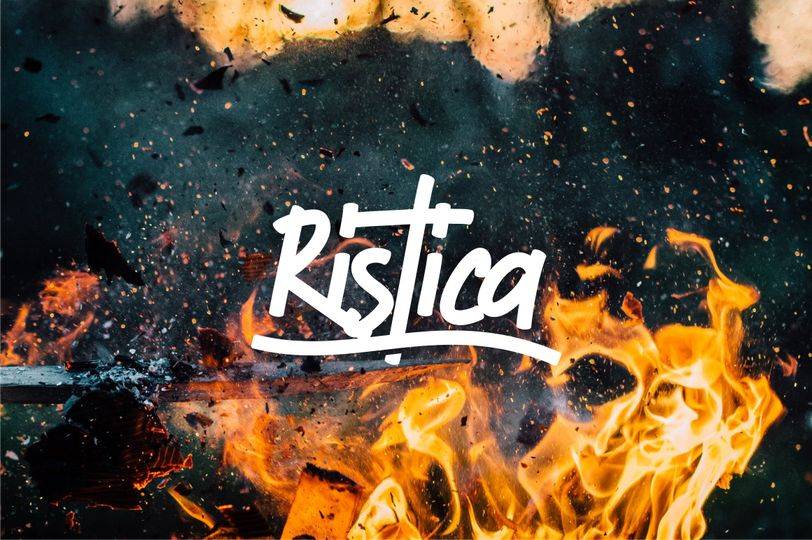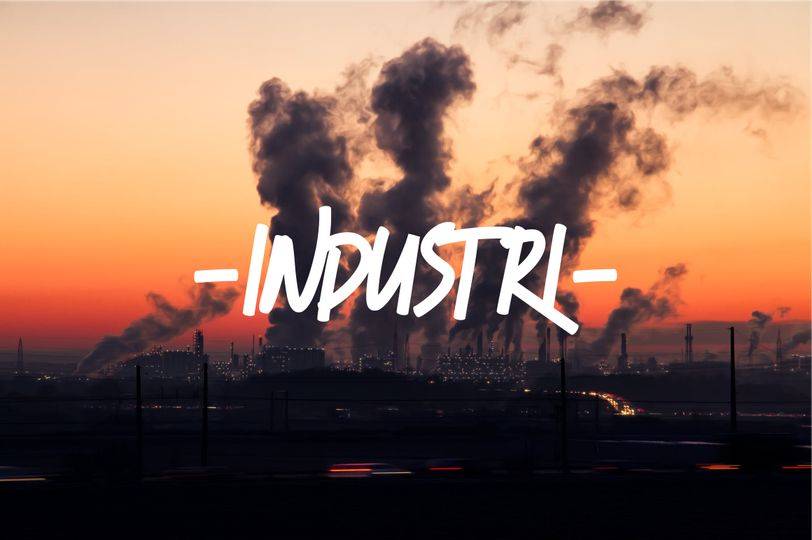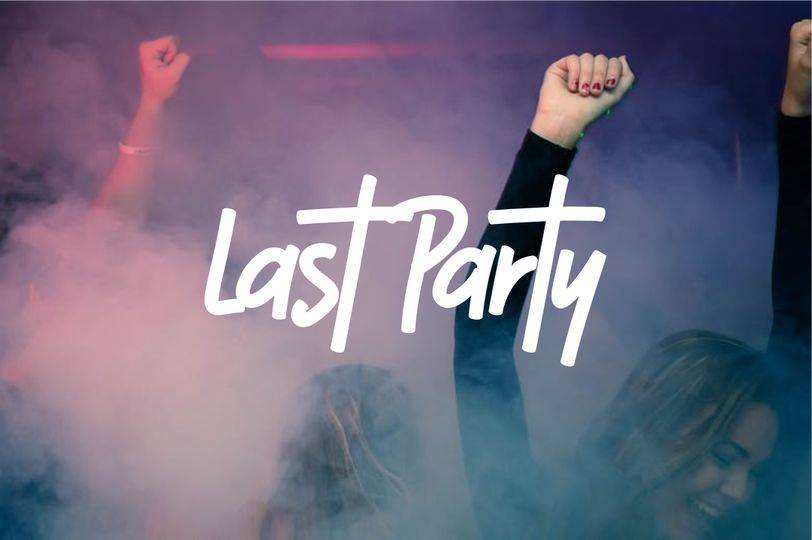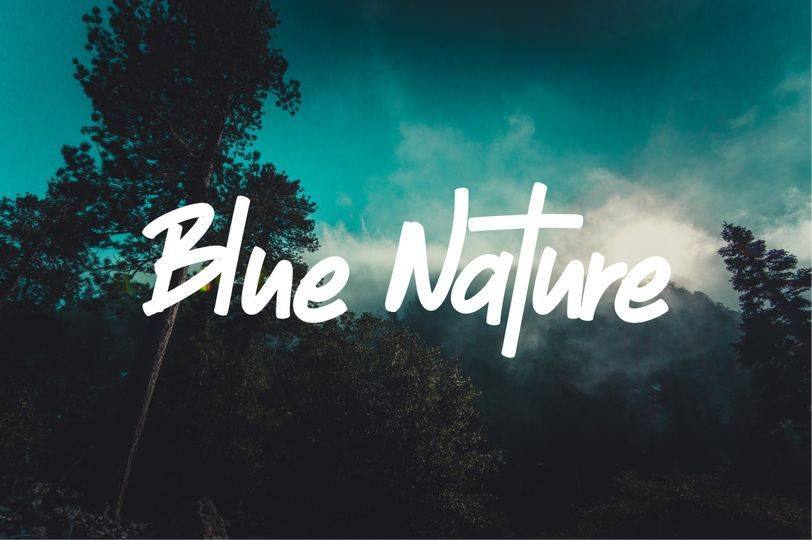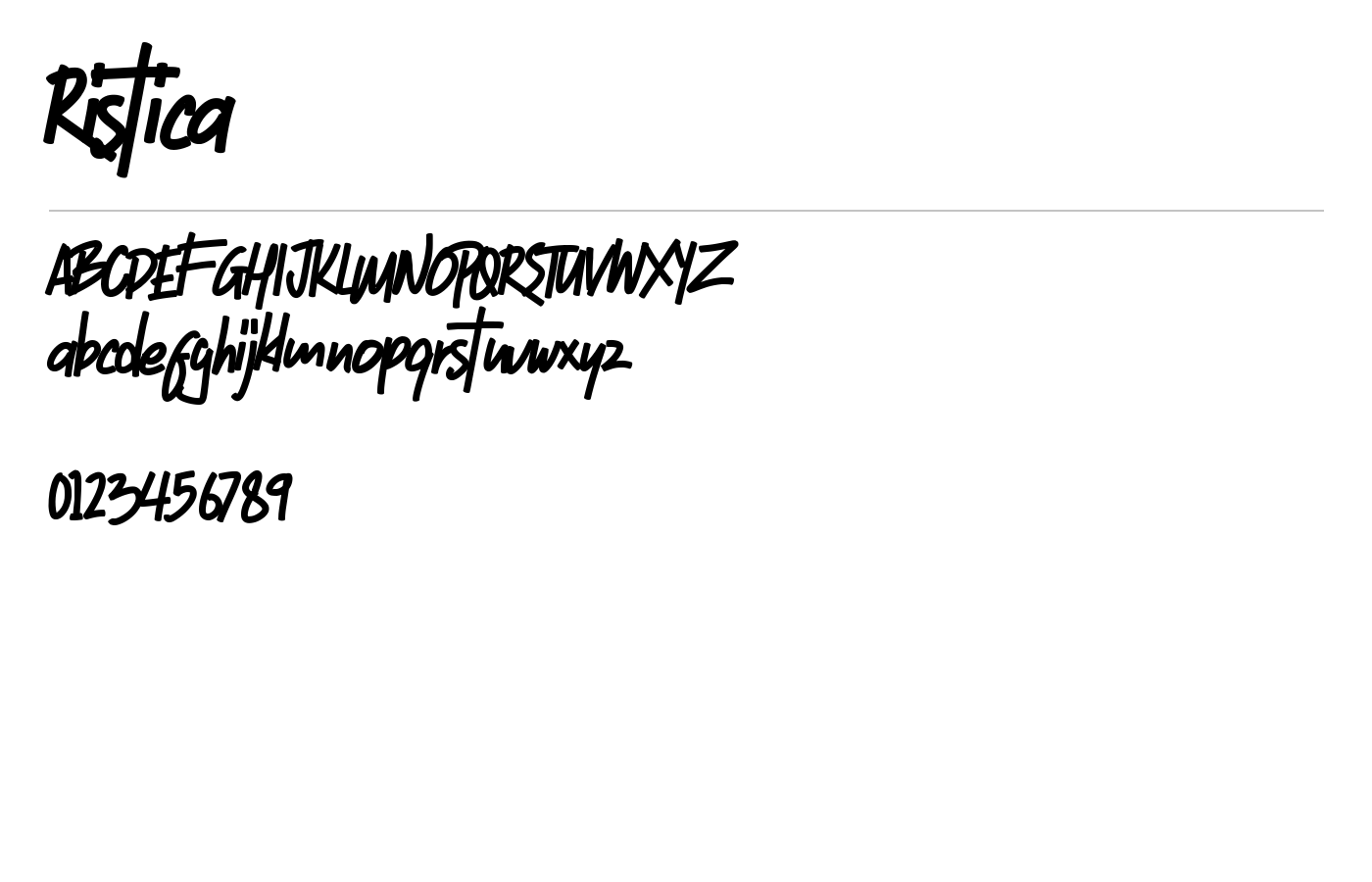
Ristica is a bold and energetic handwritten font featuring a casual, brush-script style with tall, narrow letterforms and a lively, slightly irregular flow. Its smooth, dynamic strokes and distinctive uppercase letters give it a playful and artistic personality, making it ideal for creative branding, posters, and informal headlines that seek a personal, hand-crafted touch. This font works best in designs that want to convey creativity and friendliness with a modern, urban vibe.
Ristica Font